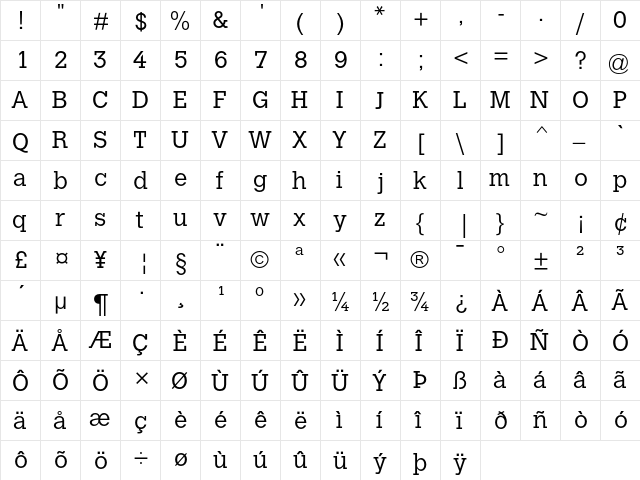
Calvert MT Light
Design Context for Calvert MT Typeface
Calvert MT offers clean, dependable letterforms without strong stylistic allegiance, making it a practical choice for designers who need flexibility. The delicate stroke weight brings airiness and refinement to layouts.
Pro Tip: Pair Calvert MT with a font of contrasting weight or personality to build a more expressive typographic hierarchy.